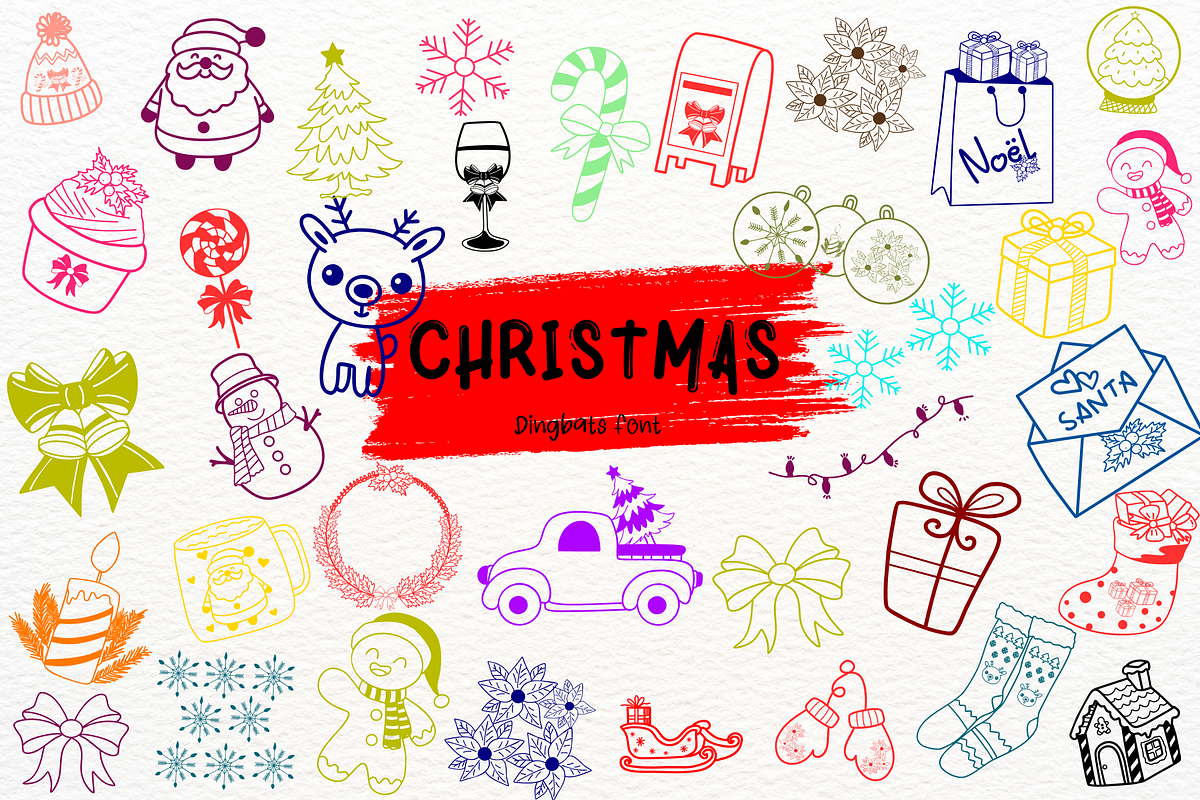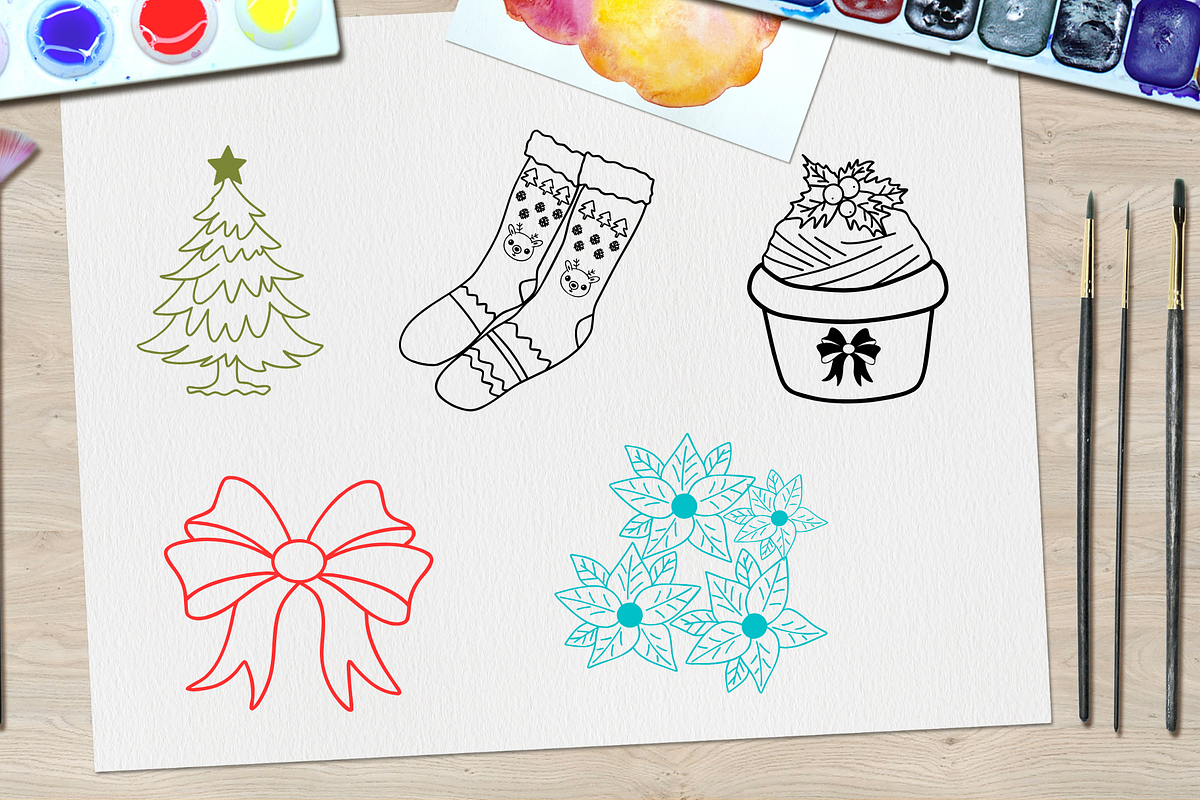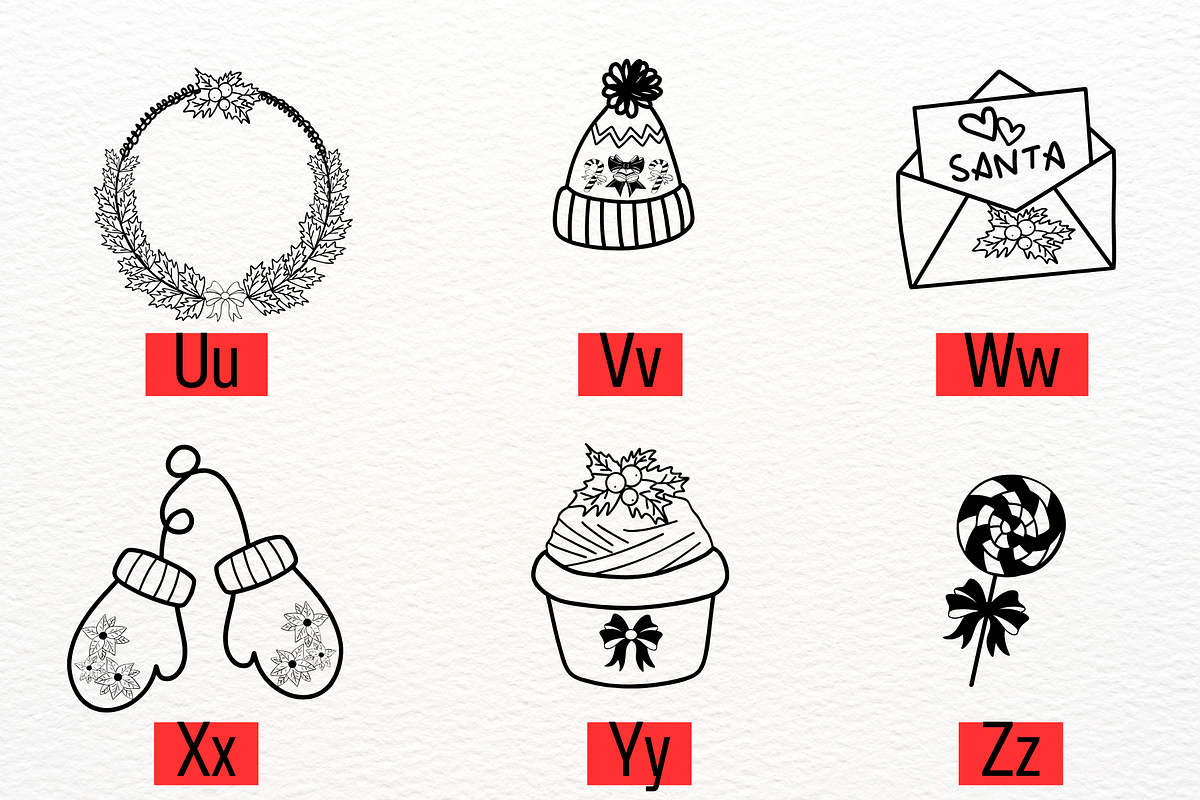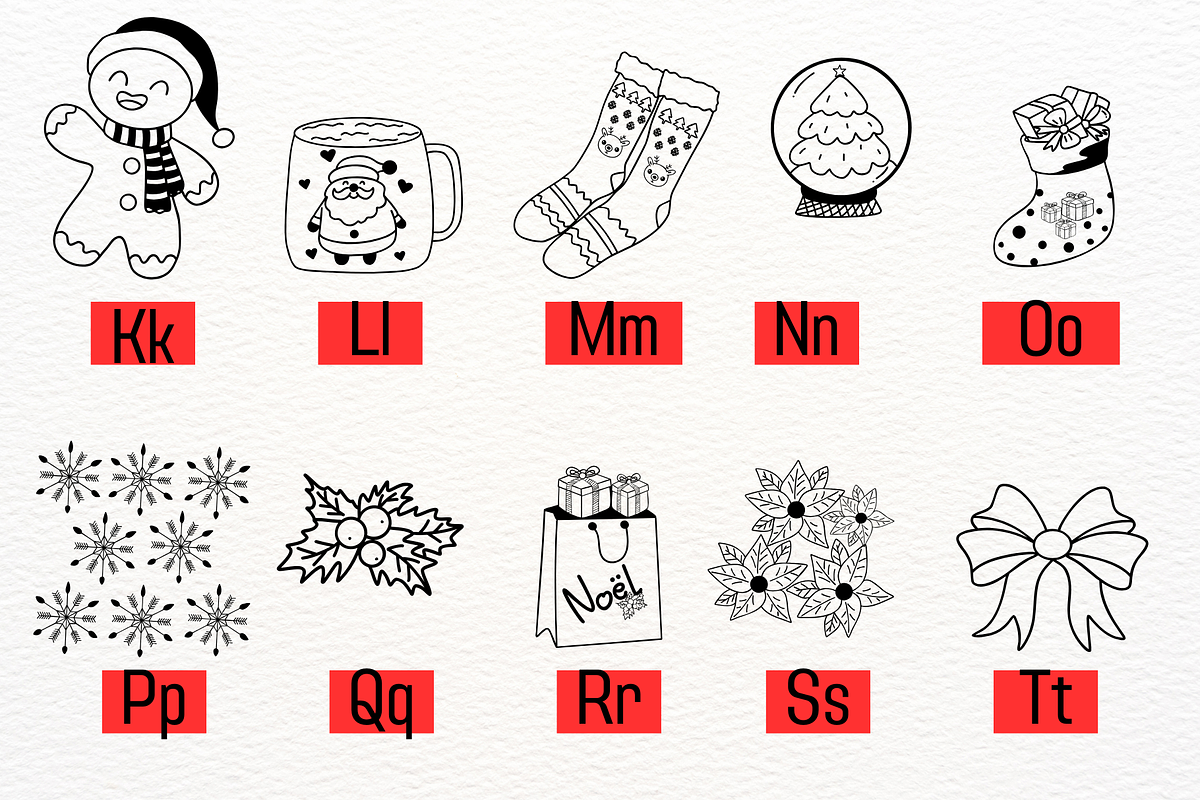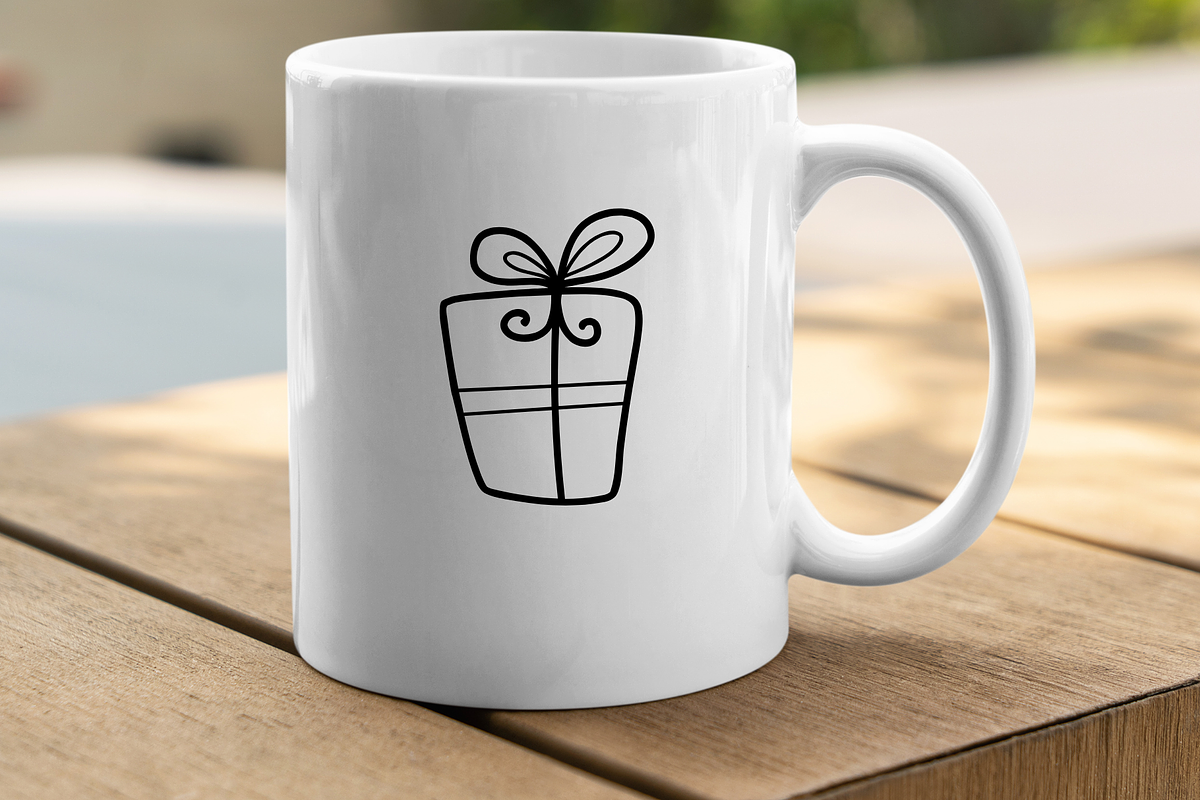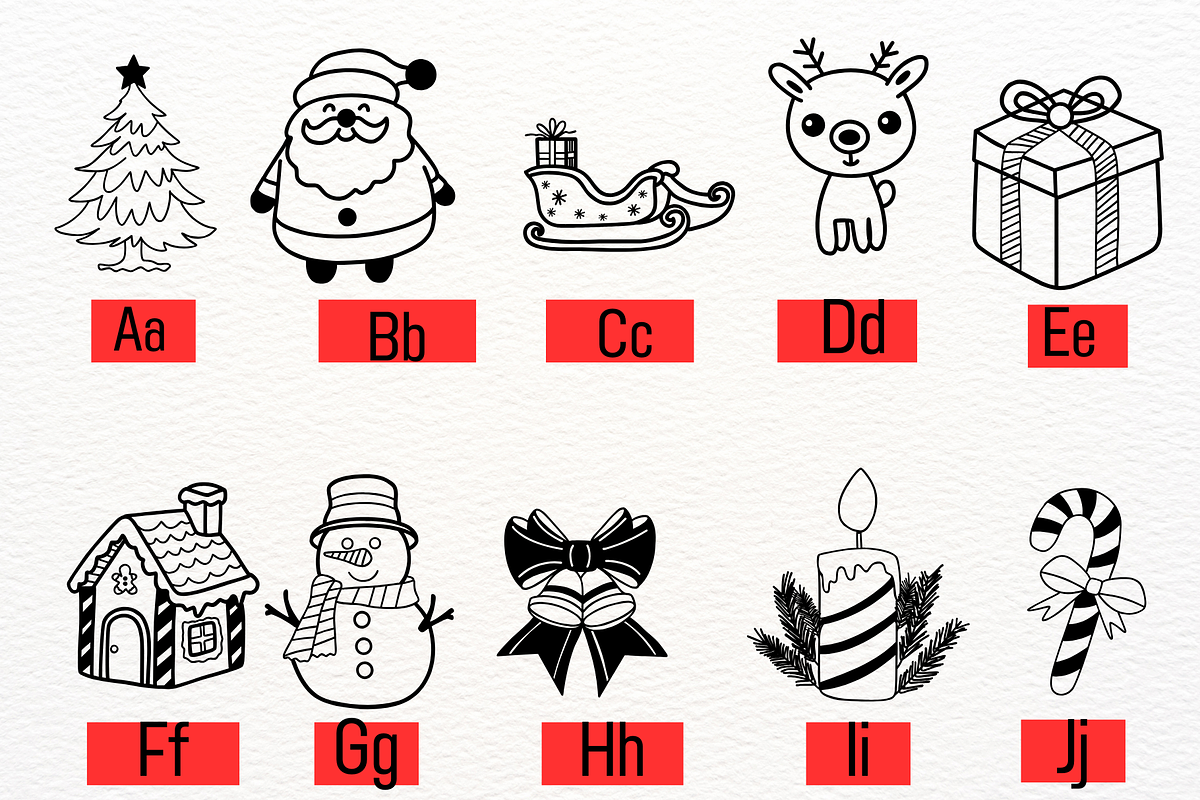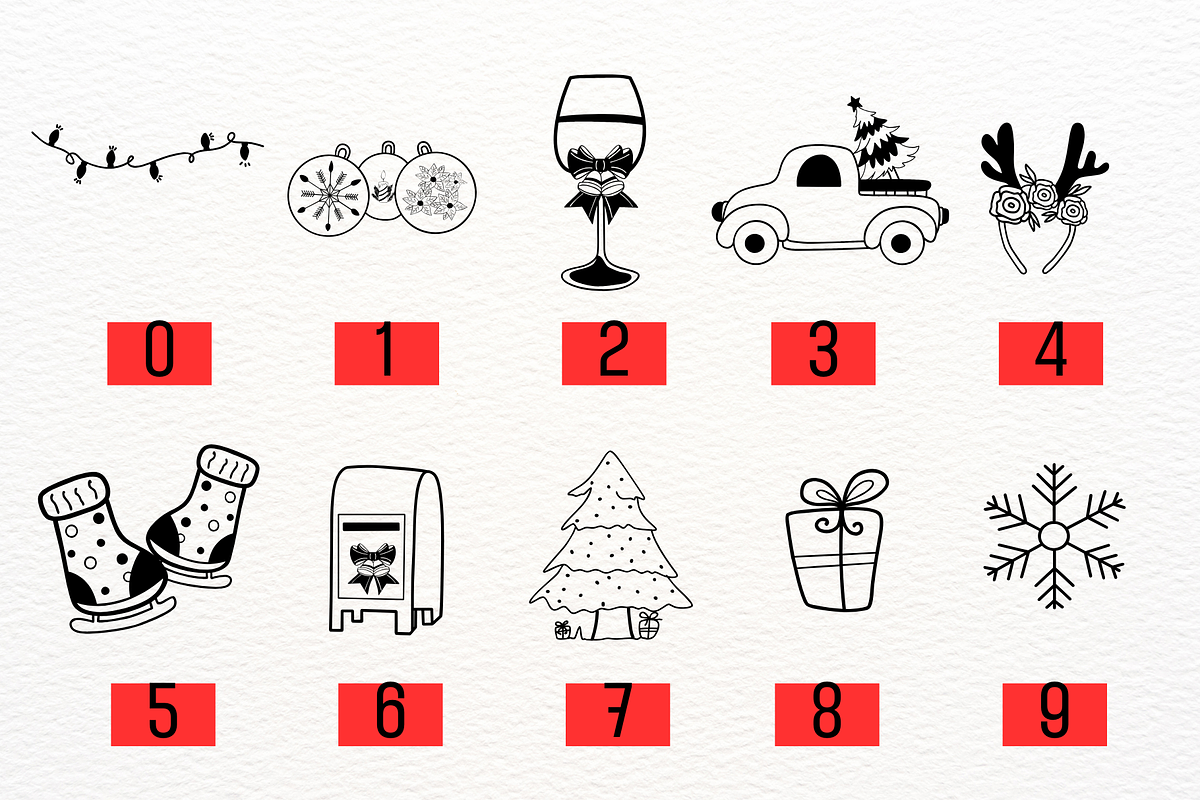
Pretty chrismas
Get into the festive spirit with the Pretty Christmas Dingbats Font, a delightful collection of hand-drawn holiday icons designed to bring your projects to life. Whether you’re crafting Christmas cards, designing festive invitations, or adding holiday charm to packaging and tags, this font is your perfect creative companion.
Packed with iconic Christmas imagery like Santa Claus, reindeer, snowflakes, Christmas trees, wreaths, gift boxes, stockings, and more, this dingbats font is both playful and elegant. Each symbol is meticulously created to ensure versatility and ease of use for both print and digital designs.
This font is perfect for a variety of holiday-themed projects, including creating decorations, customizing gift tags, designing party invites, or adding a unique touch to newsletters and advertisements. Let the magic of Christmas shine through your designs and spread holiday cheer with every project you create using this versatile dingbats font.